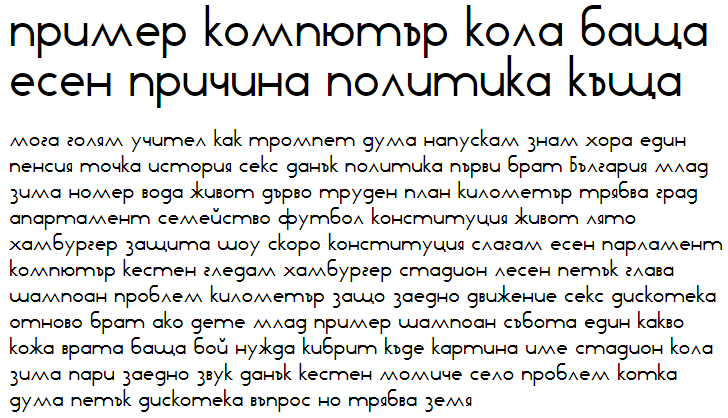
✓ Cyrillic characters added by Paul Kravchenko. Original version of Ticker Tape was supplied as a tutorial font with Ares Fontmonger program. This font is also known as 'Geo' - reflecting its geometrical design. This font can be effective with use of only the uppercase letters for headings.
Ticker Tape Cyrillic Font